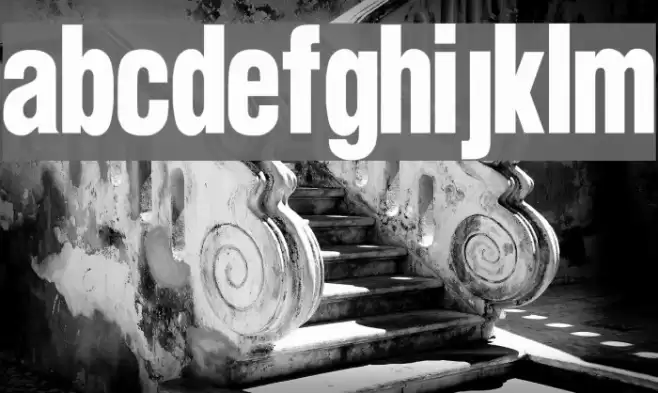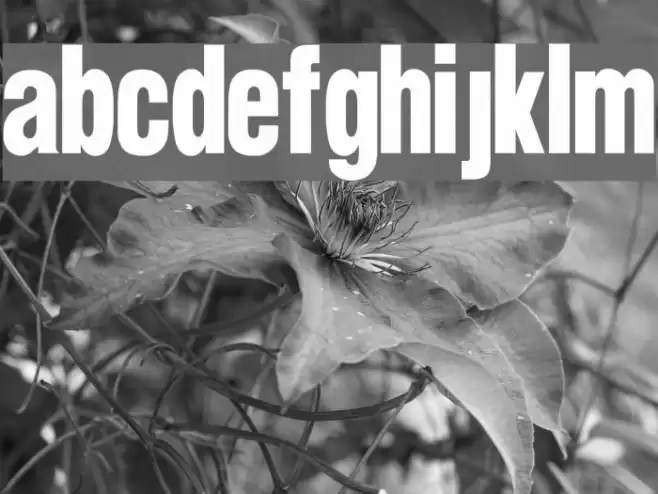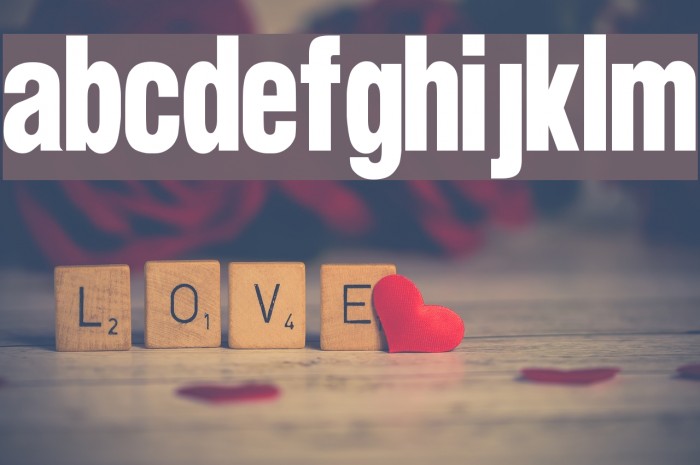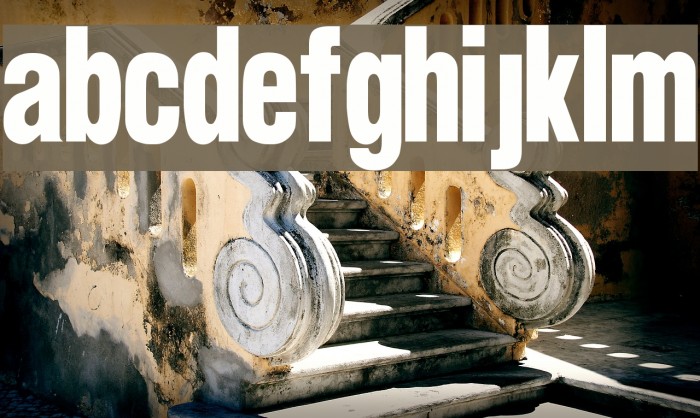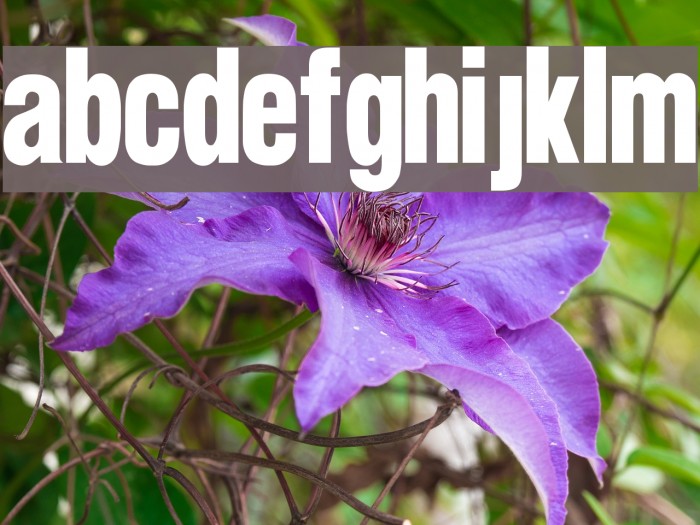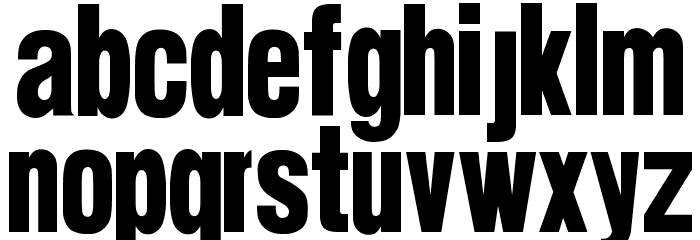
suede Font
suede Description
This font is a bold, sans-serif typeface characterized by its strong, impactful appearance. The letters are uniformly thick, with minimal contrast in stroke width, giving it a solid and robust look. The characters are tightly spaced, enhancing its compact and powerful style. Its clean lines and lack of serifs contribute to a modern and straightforward aesthetic, making it suitable for attention-grabbing headlines and titles. The numbers and special characters maintain the same boldness and clarity, ensuring consistency across all elements.
A bold, sans-serif font with a strong, impactful style from Sans Serif fonts.
- Proposed Projects: Ideal for posters, headlines, advertising, and branding projects where a strong visual impact is desired.
- Character Spacing: Tight